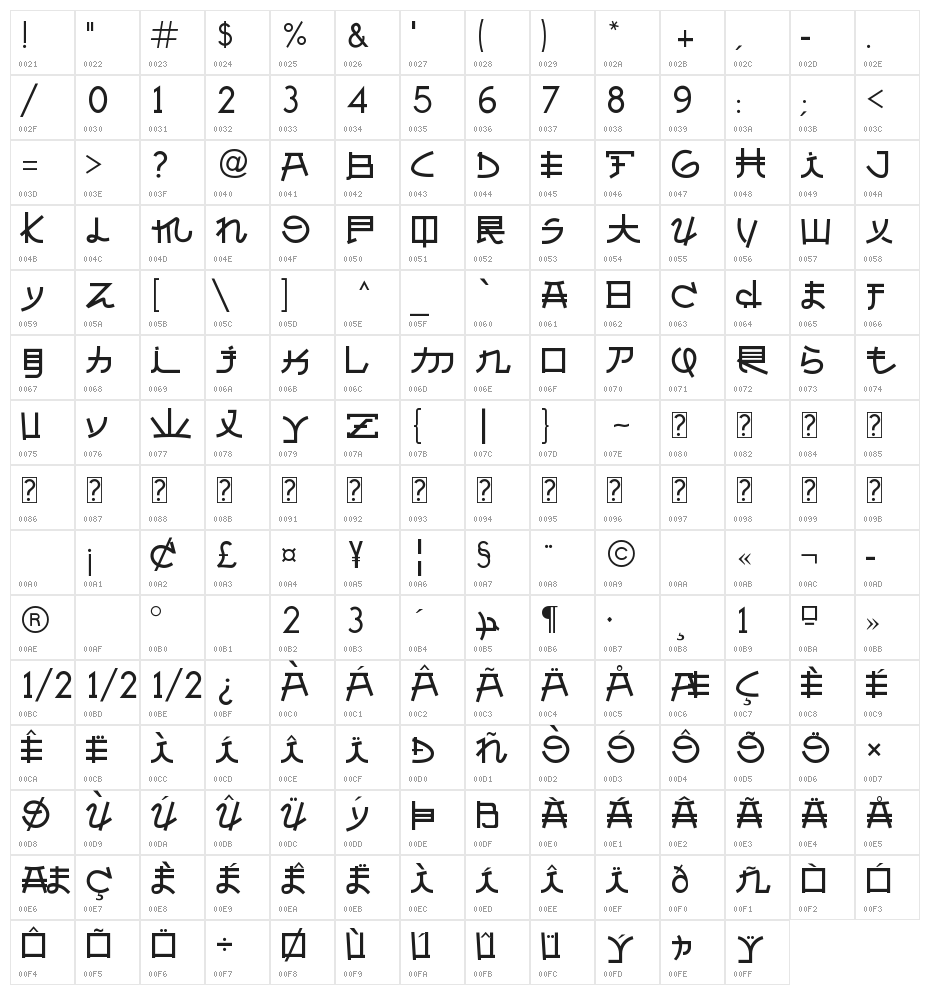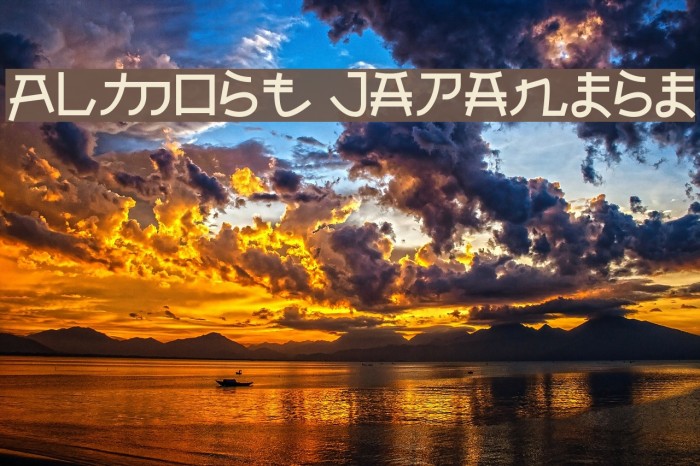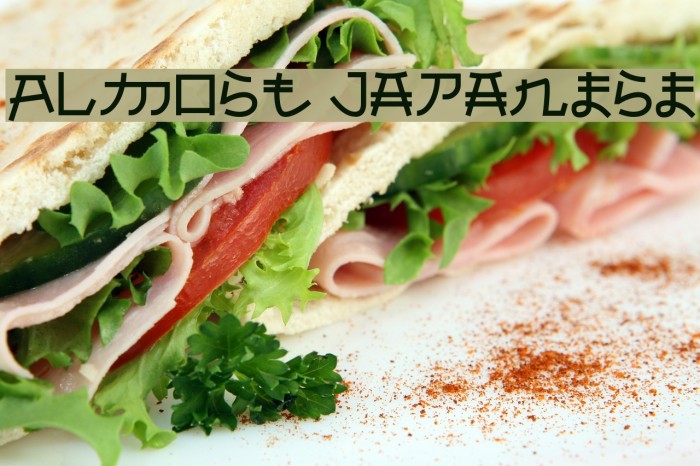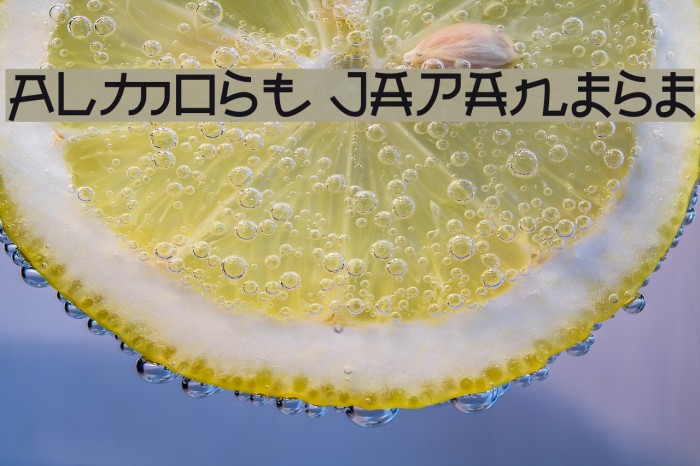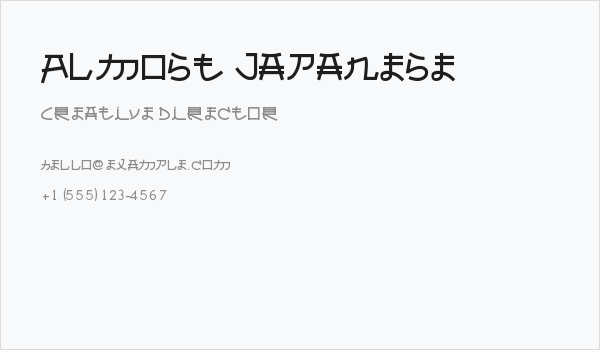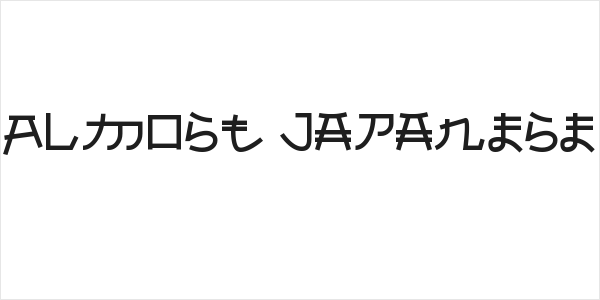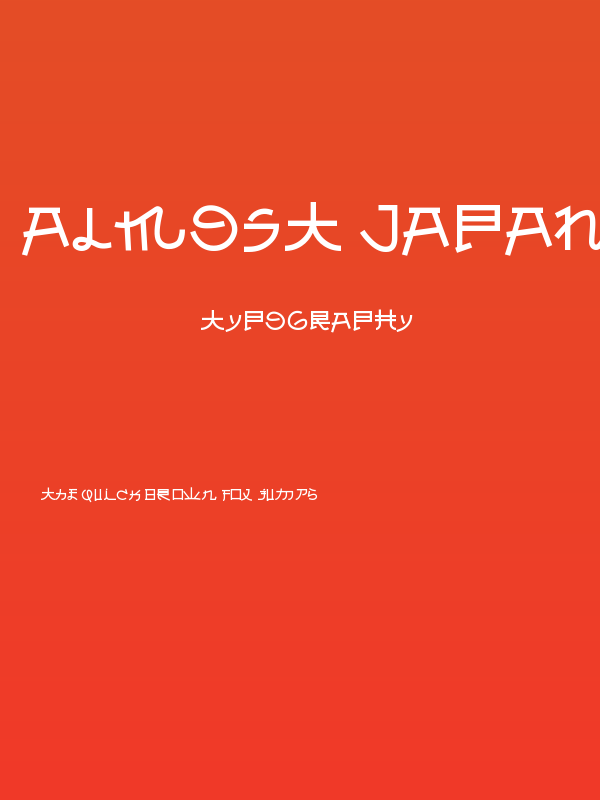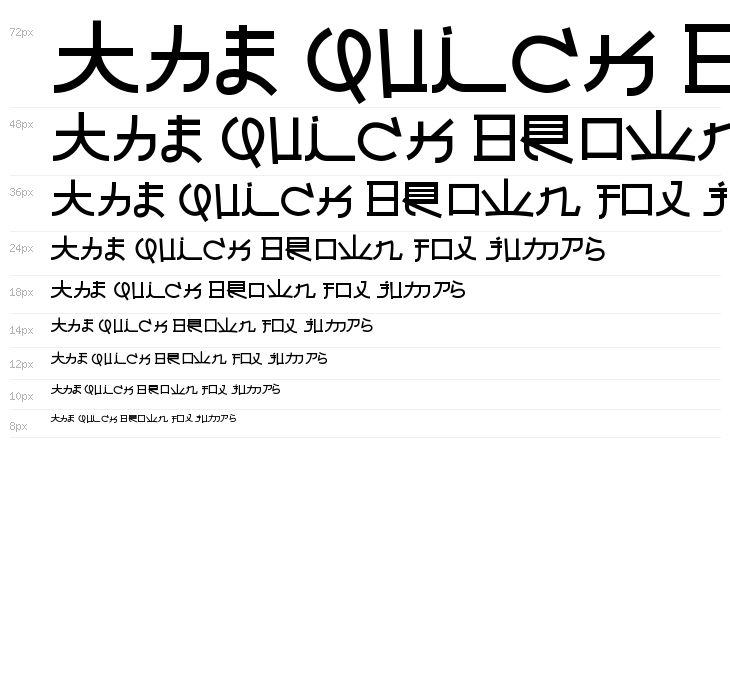
Almost Japanese Font
Almost Japanese Description
This font features a unique blend of geometric shapes and clean lines, creating an almost futuristic appearance. The characters are crafted with a distinct angularity, reminiscent of Japanese katakana, yet maintain a modern, minimalist aesthetic. The uppercase letters are bold and striking, while the lowercase letters offer a softer, more approachable feel. Numbers and special characters are designed with the same attention to detail, ensuring consistency across the typeface. The overall design is both innovative and versatile, making it suitable for a variety of creative applications.